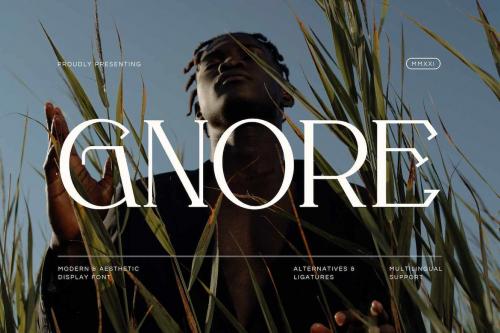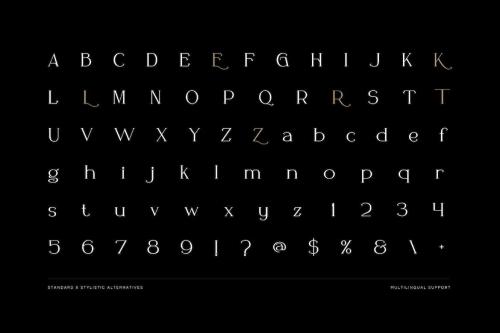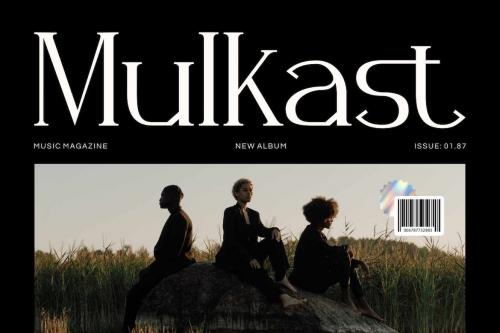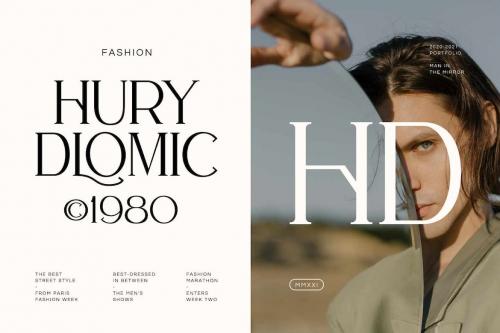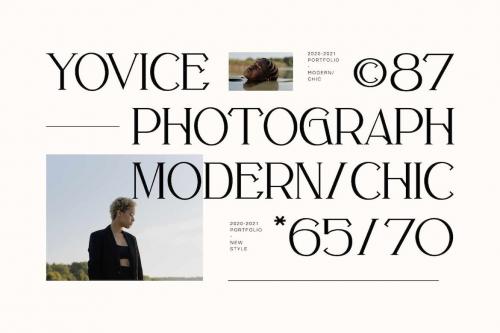
Gnore Font
**Gnore Font Product** is perfect for many of your projects like logos & branding, photography, invitations, watermarks, advertisements, product designs, stationery, wedding designs, labels, product packaging, special events and much more.
**Features**
* Uppercase & Lowercase
* Numeral & Punctuation
* Multilingual support
* **Opentype Features**